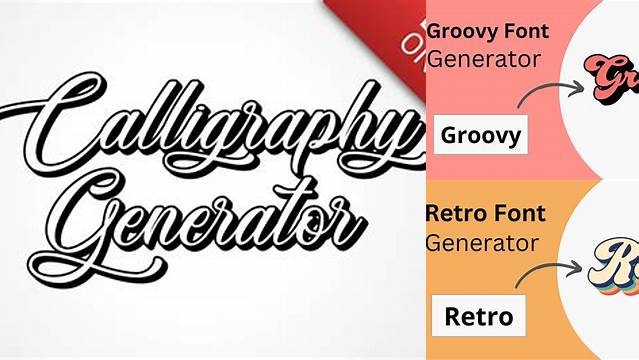
Free Lettering Fonts Generator: Create Stunning Designs
Lettering fonts are everywhere these days, from eye-catching logos to stylish social media posts. And if you're looking to add a personal touch to your designs, or simply want to experiment with different styles, a free lettering fonts generator is your ultimate creative companion. In this article, we'll explore everything you need to know about these awesome tools, how to use them, and where to find the best ones. Get ready to dive into the world of typography and unlock your inner designer!
What is a Free Lettering Fonts Generator?
Alright, guys, let's start with the basics. A free lettering fonts generator is a digital tool designed to help you create custom lettering and typography. Unlike standard fonts, which are pre-designed, lettering often has a unique, hand-drawn feel. These generators allow you to input text and then apply various styles, effects, and customizations to transform that text into a visually stunning piece of art. You can tweak everything from the thickness of the strokes to the spacing between letters. They're perfect for anyone who wants to create unique designs without having to learn complex graphic design software from scratch. These tools are incredibly user-friendly, even if you're a total beginner. Plus, since they're free, they're a fantastic way to experiment and develop your own style without any financial commitment. Whether you're a blogger, a small business owner, a student, or just someone who loves to create, a lettering fonts generator opens up a world of possibilities. With the right tools, you can make your words pop, create memorable logos, design stunning invitations, and so much more. The best part? You don't need to be a professional artist or a seasoned graphic designer to get amazing results. The generators do the heavy lifting, allowing you to focus on your creative vision. They are also a great way to boost your brand's personality! Having a distinct, handwritten font can make your brand instantly recognizable and help you connect with your audience on a more personal level. Imagine your website, social media, or marketing materials all featuring a unique, custom-designed font. It's a surefire way to stand out from the crowd and leave a lasting impression.
Key Features to Look for in a Free Lettering Fonts Generator
So, you're ready to find the perfect free lettering fonts generator, but what should you be looking for? Well, here are some essential features that can make or break your design experience:
Firstly, Customization Options: A great generator gives you a lot of control over the look and feel of your lettering. Look for tools that allow you to adjust the stroke thickness, the spacing between letters (kerning), and the overall style of the font. Some generators even let you add shadows, gradients, and other effects to really make your lettering pop. Secondly, Font Variety: The best generators offer a wide range of font styles. From elegant scripts to bold, modern sans-serifs, you'll want a tool that provides plenty of options to match your creative vision. This way, you'll have the flexibility to create designs for any occasion, from formal invitations to playful social media posts. Thirdly, User-Friendly Interface: Let's be honest, nobody wants to spend hours trying to figure out how to use a complicated tool. Make sure the generator you choose has an intuitive and easy-to-navigate interface. Look for a clean layout with clearly labeled options and a preview window that shows you exactly what your lettering will look like in real-time. Fourthly, Downloadable Files: Check whether the generator allows you to download your creations in common file formats, like PNG or SVG. These formats are widely compatible and can be used in most design programs and on the web. Finally, Additional Features: Some generators offer even more advanced features, like the ability to add flourishes, create monograms, or even generate entire font families. These extra features can take your lettering designs to the next level. By keeping these key features in mind, you'll be able to find a free lettering fonts generator that's perfect for your needs and helps you create stunning designs with ease. Remember, the goal is to find a tool that empowers you to express your creativity without any limitations. So go ahead, explore the options, and find the generator that speaks to your artistic soul.
Top Free Lettering Fonts Generators: Our Recommendations
Now that you know what to look for, let's dive into some of the best free lettering fonts generators available. We've compiled a list of our top recommendations, each with its own unique strengths and features:
Tips and Tricks for Using Lettering Fonts Generators
Alright, you've found a great free lettering fonts generator, now it's time to put it to work! Here are some tips and tricks to help you make the most of these tools and create stunning lettering designs:
Firstly, Experiment with Different Styles: Don't be afraid to try out various font styles and effects. Play around with different combinations to find what works best for your project. Mixing and matching fonts can create a unique and eye-catching look. Secondly, Consider Your Audience: Think about who you're designing for and what message you want to convey. Choose fonts and styles that align with your target audience and the overall tone of your project. This helps ensure that your designs resonate with the people you're trying to reach. Thirdly, Pay Attention to Spacing: Kerning (the space between letters) is crucial for readability and visual appeal. Adjust the spacing until the letters flow together naturally and the text is easy to read. Fourthly, Use Color Wisely: Color can have a huge impact on the overall look and feel of your lettering. Experiment with different color palettes to find what works best for your design. Remember to consider the background color and ensure good contrast for optimal readability. Finally, Practice Makes Perfect: Like any skill, creating great lettering takes practice. Don't be discouraged if your first attempts aren't perfect. Keep experimenting, keep practicing, and you'll see your skills improve over time. The more you use these tools, the more comfortable and confident you'll become. And don't be afraid to seek inspiration from other designers and lettering artists. There are tons of online resources and tutorials available to help you learn new techniques and expand your creative horizons. By following these tips and tricks, you'll be well on your way to creating beautiful and effective lettering designs with your free generator. So get creative, have fun, and let your imagination run wild!
Common Uses for Lettering Fonts Generated with These Tools
So, you're wondering,